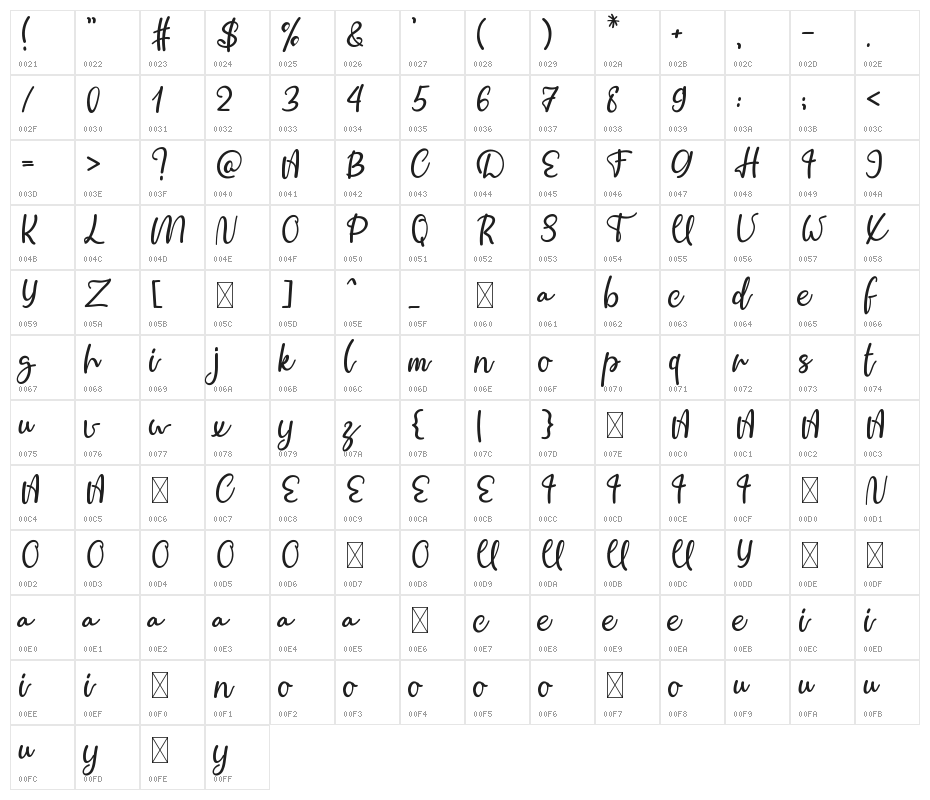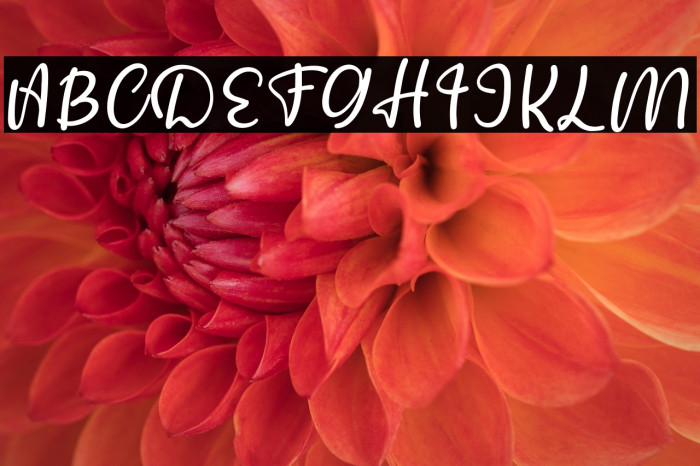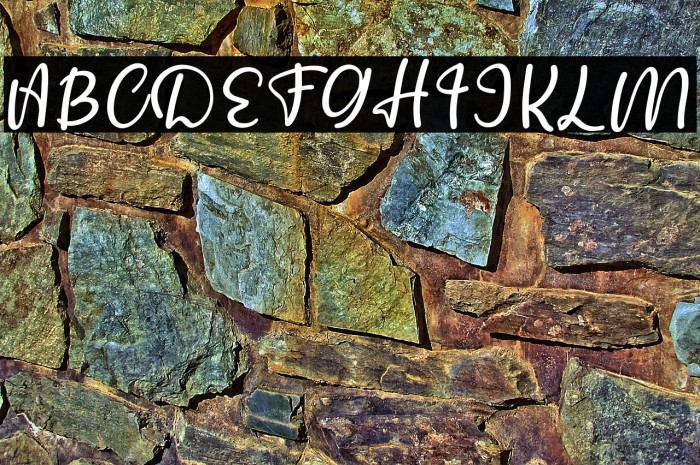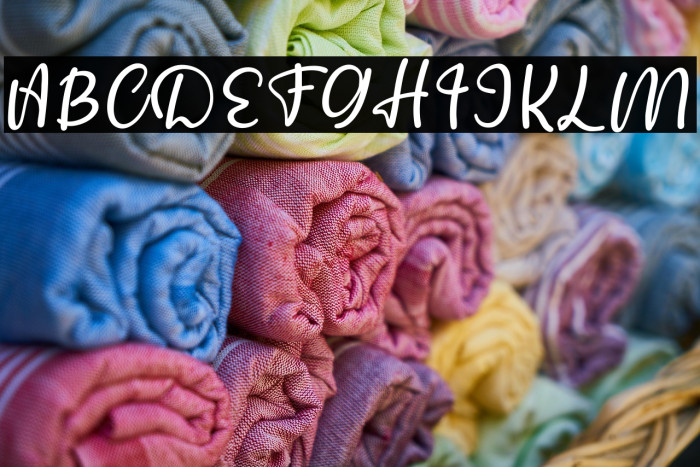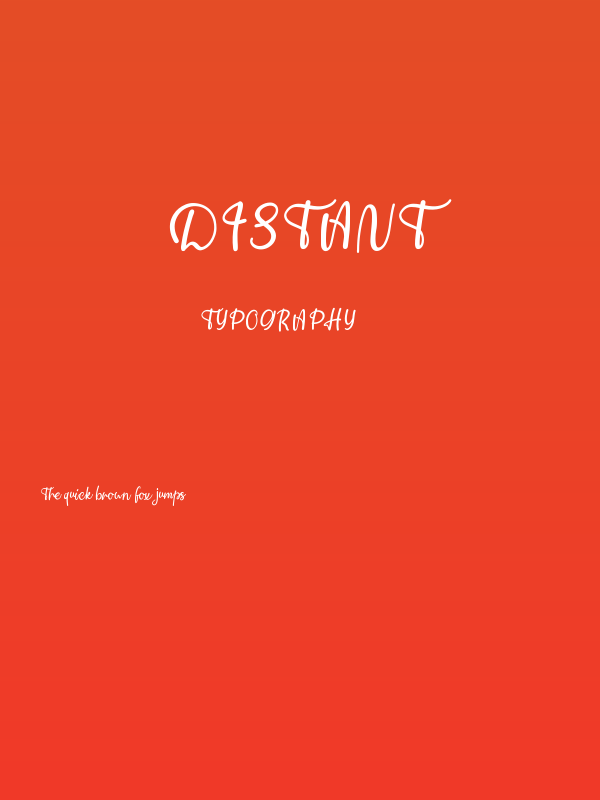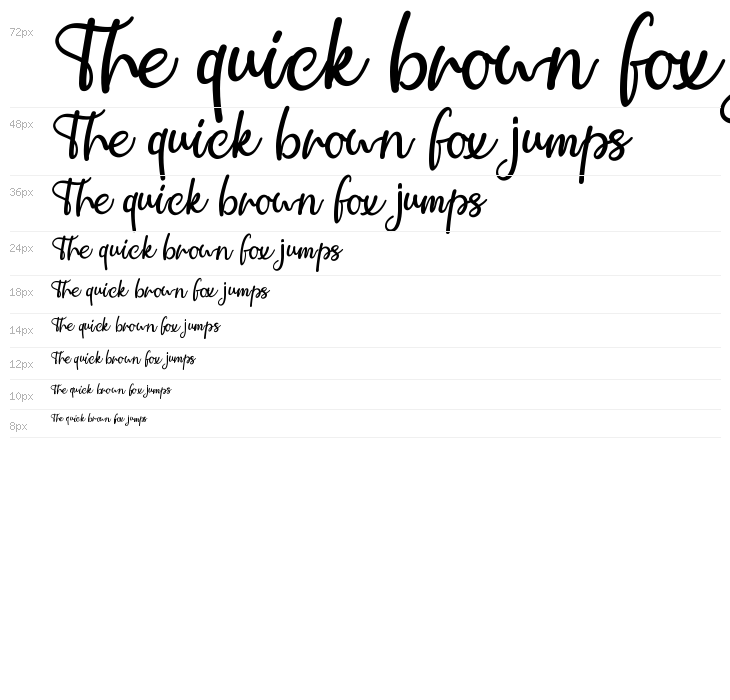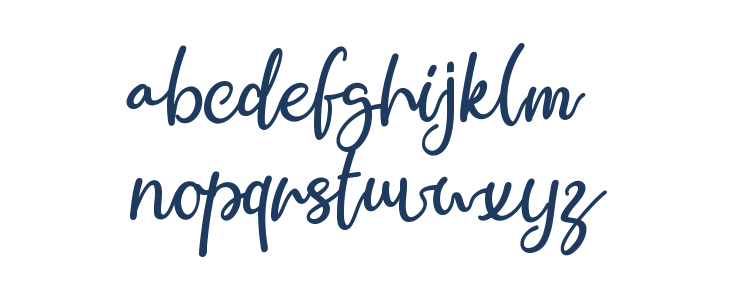
Distant Font
| Name | Distant |
| Gesamtstil | Casual, Artistic |
| Anwendungsfall | Headlines, Logos, Invitations |
| Vorgeschlagene Projekte | Ideal for greeting cards, invitations, personal branding, and creative projects that require a personal and artistic touch. |